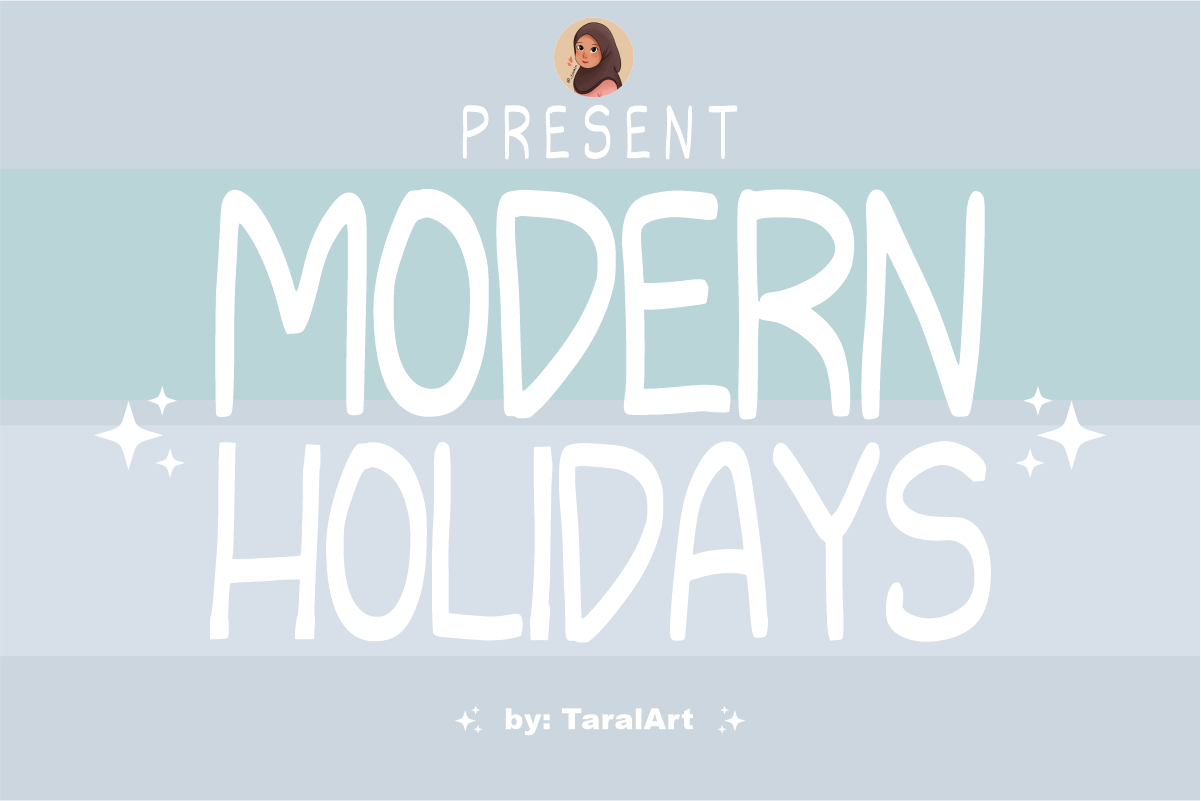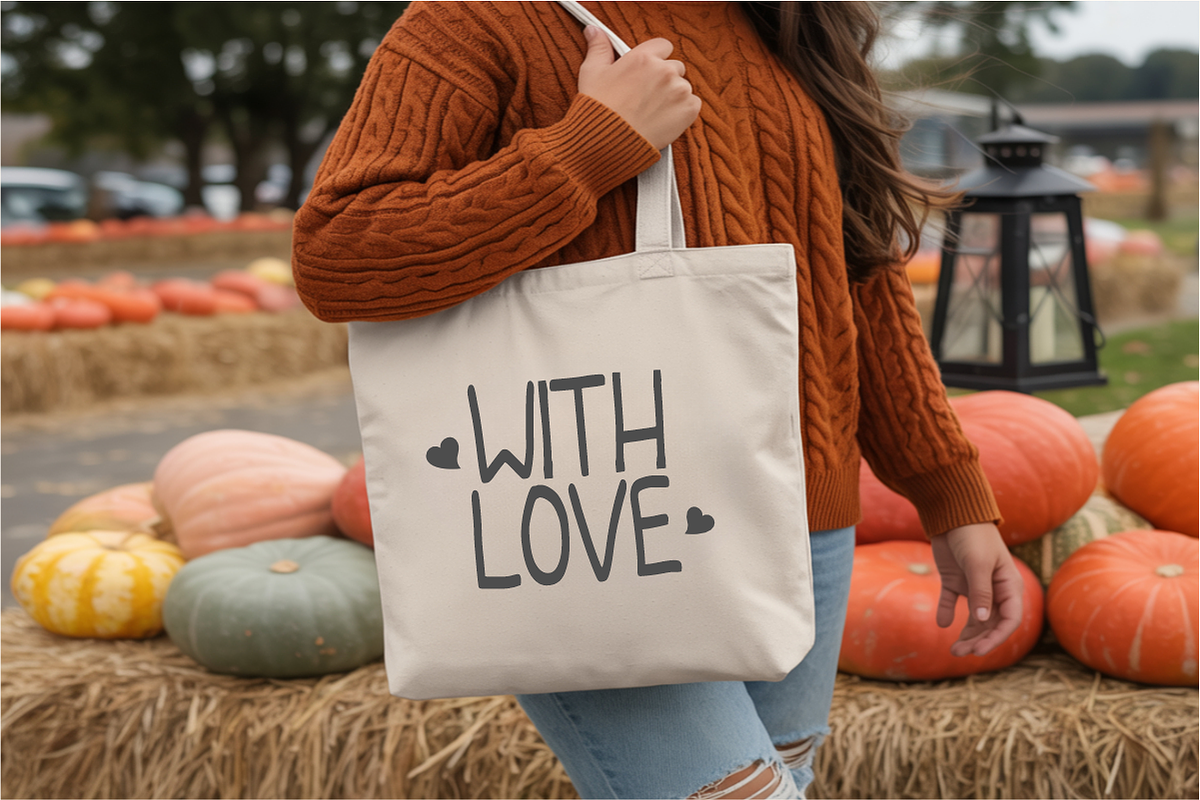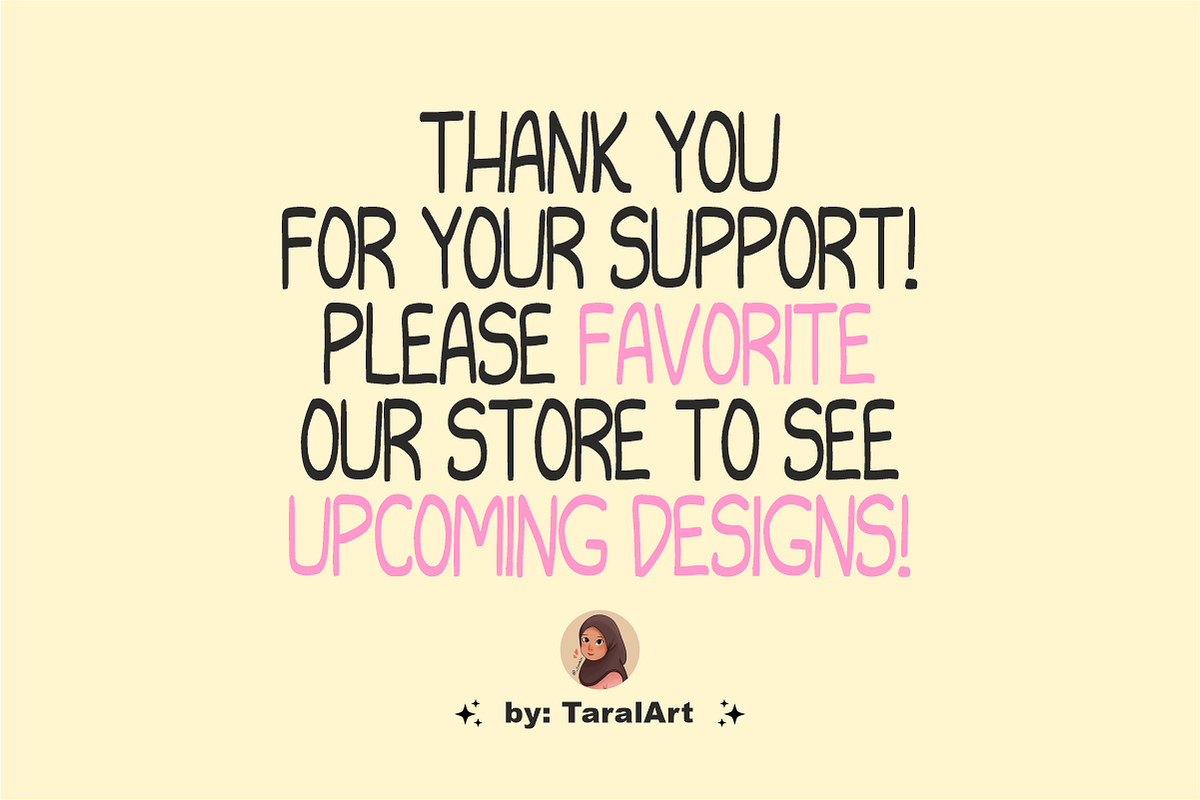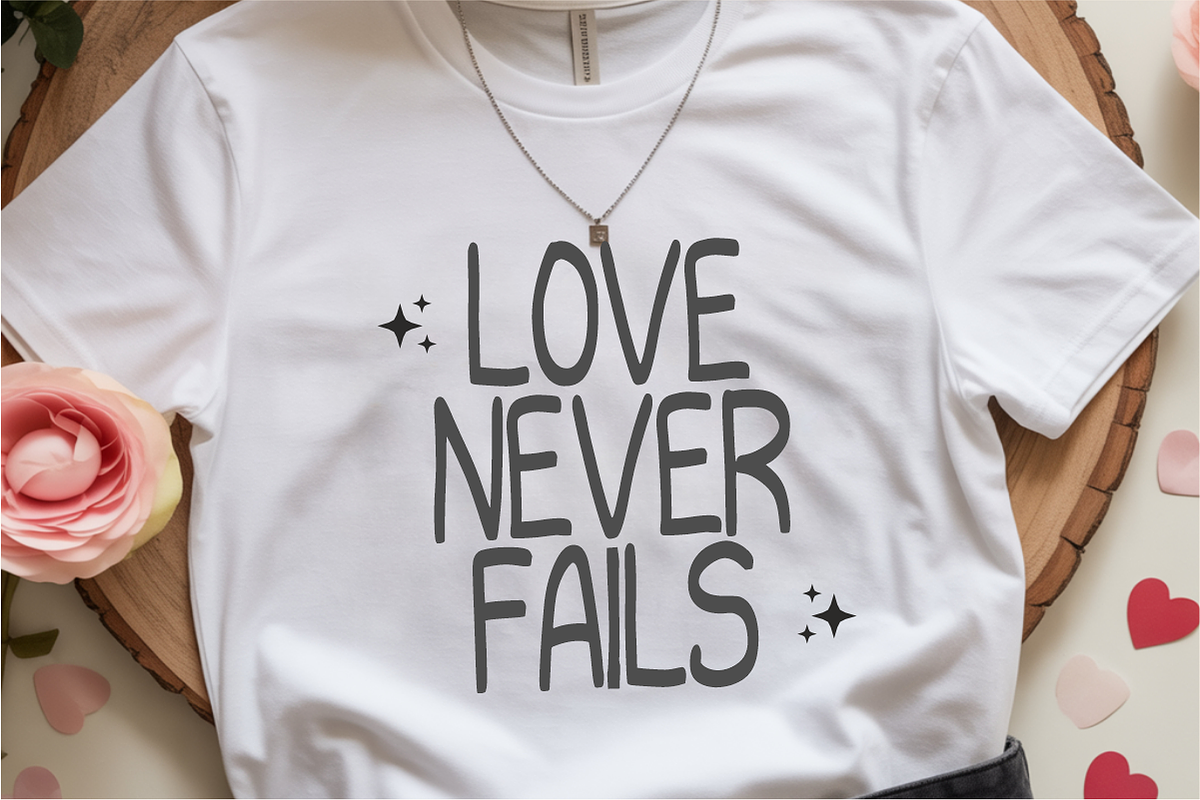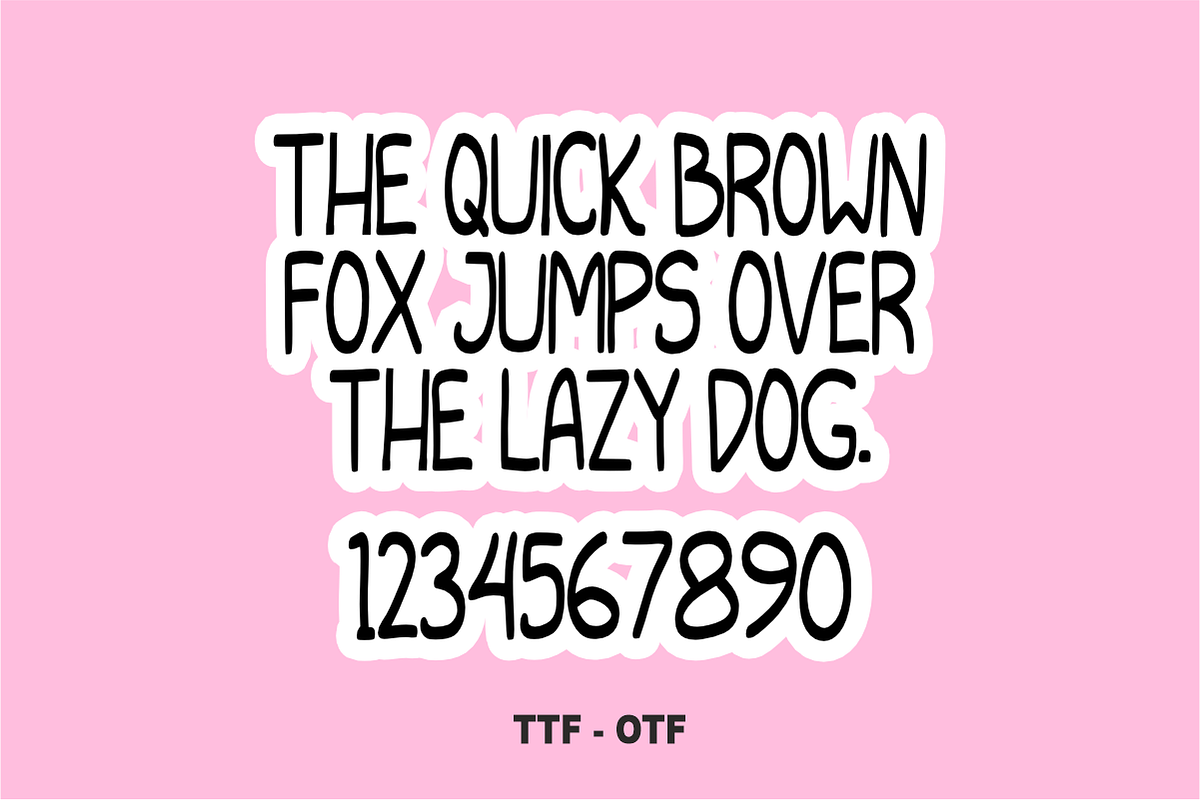
Modern Holidays - Playful Font
Modern Holidays is a charming, tall handwritten display font that brings a whimsical, festive touch to your seasonal designs. Featuring clean, organic hand-drawn lines with a gentle bounce, this versatile sans-serif font is perfect for holiday cards, winter branding, and cozy creative projects. Every character is cleanly vectorized to ensure flawless, crisp cutting on Cricut and Silhouette machines.
Ideal For:
Christmas and holiday greeting cards, labels, and gift tags
Custom die-cut stickers, enamel pins, and planner decals
Winter event invitations, festive banners, and signage
Social media quotes, holiday layouts, and Canva templates
Kids' apparel, seasonal mugs, and custom merchandise
Cricut, Silhouette, and DIY vinyl crafting projects